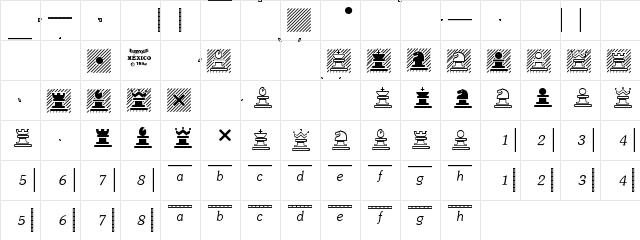
Chess Marroquin Regular Font Preview
Chess Marroquin Regular
Chess Marroquin Regular Font Details
Design Context for Chess Marroquin Typeface
Chess Marroquin offers clean, dependable letterforms without strong stylistic allegiance, making it a practical choice for designers who need flexibility.